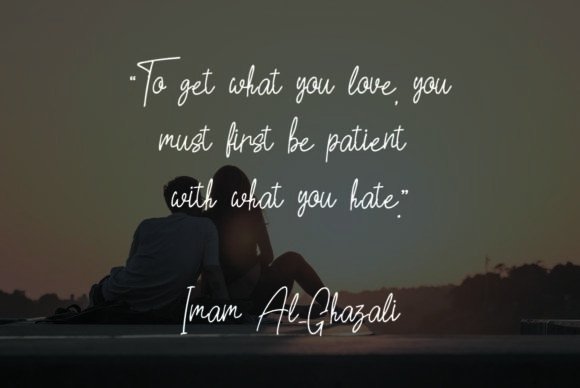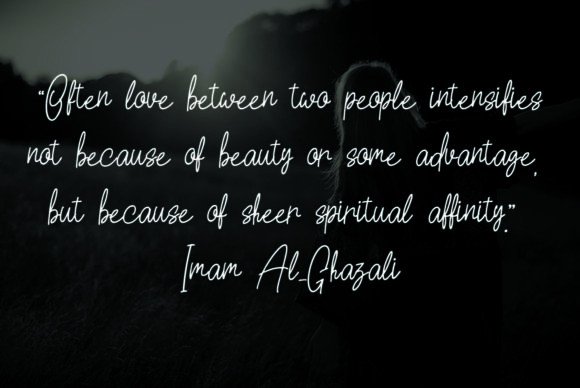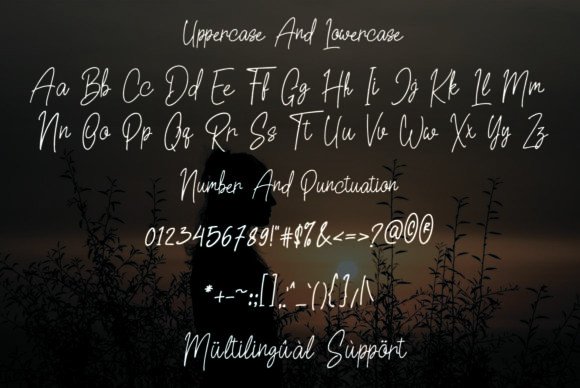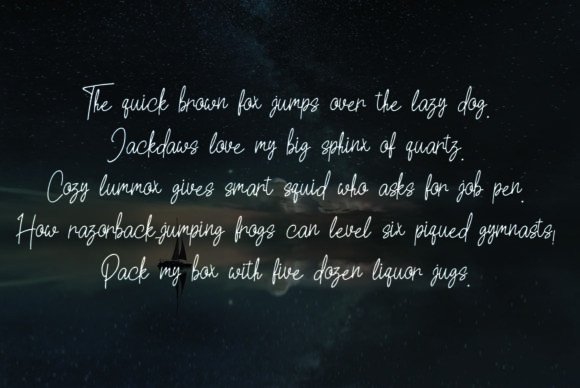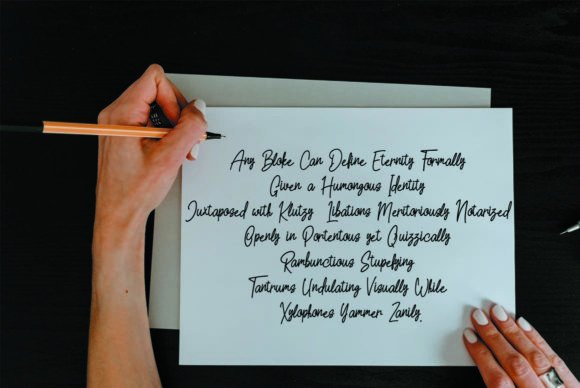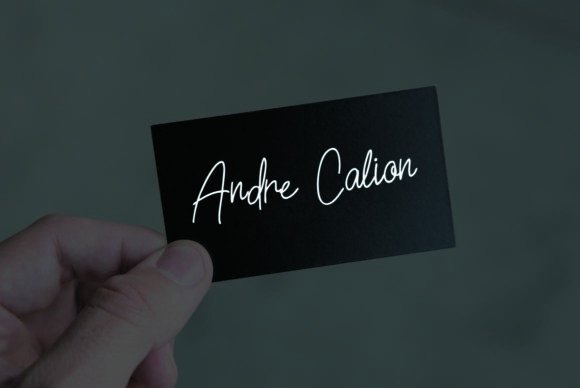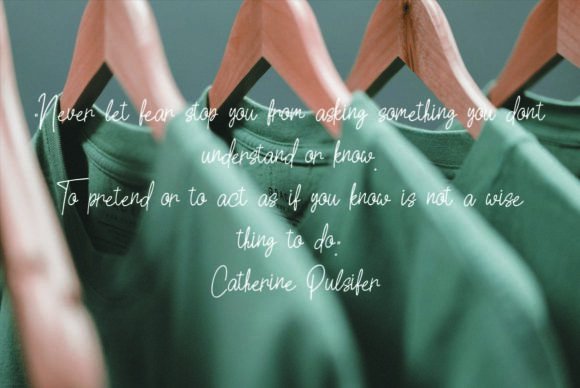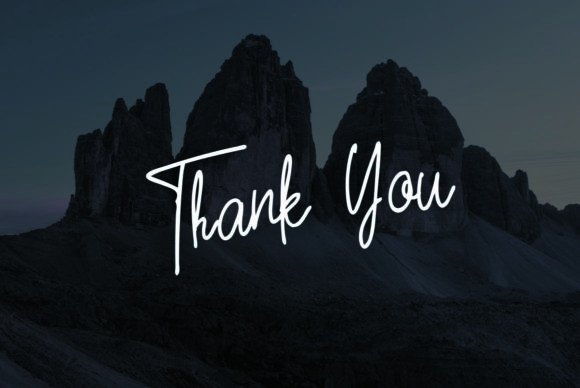
Bologna Font
Bologna Font Download – Enchanting Romantic Handwritten Script
The Bologna Font download is a charming handwritten script designed to add elegance and romance to your creative projects. With its graceful flow and enchanting details, this font is versatile enough to work across a wide range of designs. Because of its stylish strokes, it is ideal for greeting cards, invitations, posters, and branding projects.
Enchanting and Romantic Script Style
Bologna features smooth curves and balanced lettering that create a romantic and inviting appearance. As a result, it brings sophistication while retaining the warmth of a handwritten look. In addition, its timeless qualities ensure projects remain stylish and relevant.
From wedding invitations to heartfelt greeting cards, this font adds elegance and charm. It makes your words feel personal and memorable. Therefore, it is an excellent choice for stationery and event designs.
Bologna Font Download for Posters and Logos
The Bologna Font download also shines in posters, logos, and branding campaigns. Its graceful strokes help businesses project a stylish, professional, yet approachable identity.
Versatility Across Creative Projects
From social media posts and digital artwork to DIY crafts, this font adapts effortlessly. In addition, it performs well across both print and digital platforms, making it a reliable choice for modern designers.
Readability and Balanced Design
Unlike overly decorative fonts that can be difficult to read, Bologna maintains clarity while looking elegant. As a result, it works well in both large titles and smaller details.
Why Add This Script Typeface to Your Collection?
The Bologna Font download is elegant, versatile, and easy to use. In other words, it fits invitations, posters, logos, branding, and greeting cards alike. Finally, it is a handwritten script that adds romance, creativity, and timeless charm to every design.